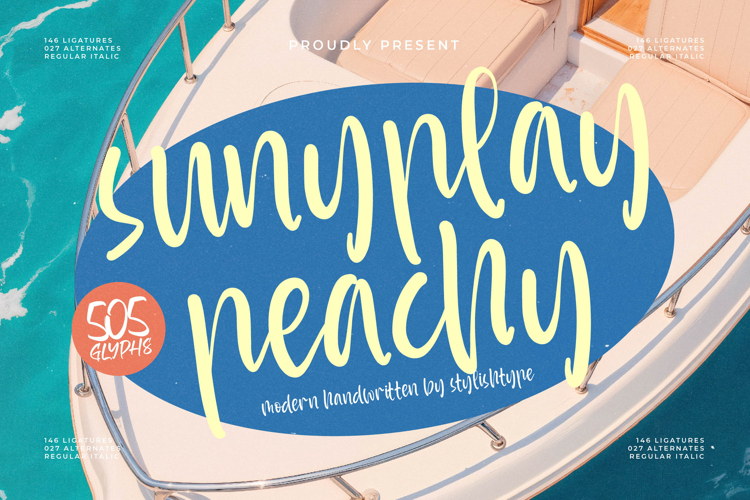
Sunyplay Peachy - Modern Handwritten Font
Achieve true typographic artistry with unparalleled customization capabilities built directly into the file. Featuring 146 meticulously crafted ligatures and 27 stylistic alternates, Sunyplay Peachy - Modern Handwritten Font allows designers to create genuinely unique headlines and logos with seamless variation. These extensive open-type features ensure that consecutive letter pairs never look repetitive, giving every design a deeply customized, professionally refined appearance, optimized for high-end digital and print output.